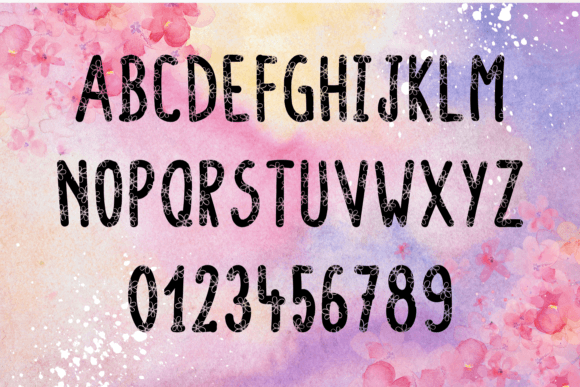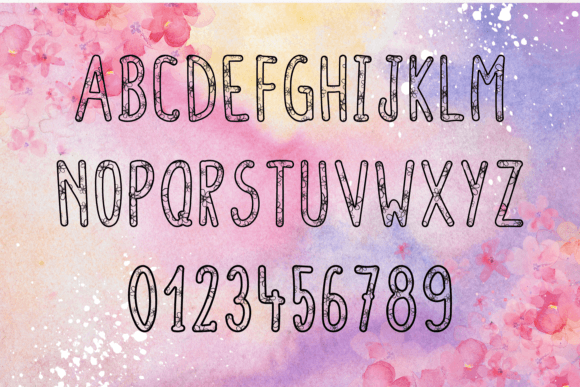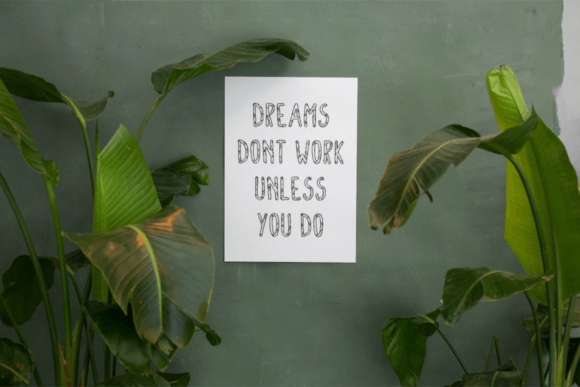
Introduction to Flowers Hollow Dark Font
Have you ever stared at a blank canvas, searching for the perfect font to bring your creative project to life? The frustration of scrolling through countless options, only to settle for something that’s just ‘good enough,’ can be overwhelming. But what if I told you that there’s a font that can transport you to a world of elegance and mystery, where every design becomes a masterpiece?
Meet the Flowers Hollow Dark Font, a stunning duo that’s about to revolutionize your design game. With its intricate, hollow design and transparent background, this font is a treasure trove of creative possibilities. Whether you’re a seasoned designer or a beginner, this font is the perfect design resource to elevate your work and take your projects to the next level.
Key Features of Flowers Hollow Dark Font
- High-quality design for creative projects with a unique aesthetic
- Transparent background for seamless integration into various designs
- Features a bold, dark design with intricate details and textures
Honest Review: Flowers Hollow Dark Font
I recently had the chance to work with the Flowers Hollow Dark Font in a creative project, and I’m excited to share my thoughts on this design resource. First impressions are everything, and this font did not disappoint. It has a high quality, mysterious feel that sets the tone for a dark and moody aesthetic.
The Flowers Hollow Dark Font features a transparent background, which makes it easy to layer with other design elements. I love how versatile it is and how it can be used in a variety of different projects, from posters to digital art.
Here are some things that I think work well with the Flowers Hollow Dark Font: ✨
- Its unique, hand-drawn feel adds a touch of personality to any design project
- The high contrast between the bold lines and transparent background creates a striking visual effect
However, I do think there are a few limitations to the Flowers Hollow Dark Font: ⚠️
- It may be a bit too dark for some designs, so be sure to balance it with lighter elements
- The font may not be suitable for projects that require a lot of text, due to its bold and dramatic feel
Overall, I’m impressed with the Flowers Hollow Dark Font and would recommend it to designers looking for a unique and high-quality design resource. It’s perfect for creative projects that require a touch of mystery and intrigue.
The Flowers Hollow Dark Font is ideal for use in creative projects, such as:
- Designing a logo or brand identity
- Creating social media graphics or posters
- Developing a brochure or flyer
- Adding a touch of elegance to presentations or reports